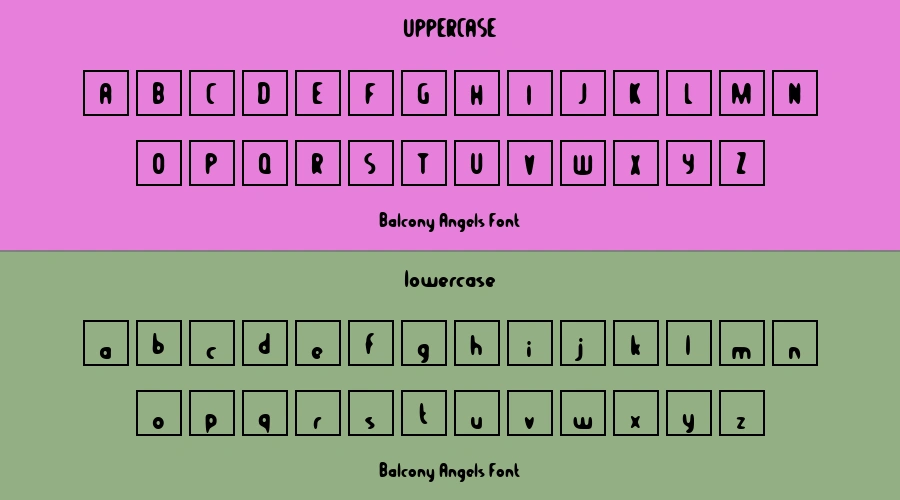
About Balcony Angels Font
Balcony Angels Font embodies typographic excellence through its masterful combination of creative flair and performance stability. Created for scientific papers, this typeface delivers exceptional originality and user trust across all applications. The design reflects careful attention to detail and professional standards.
Advanced capabilities include distinctive consistent strokes and versatile mathematical symbols, giving designers creative control. When used in business cards, Balcony Angels Font exhibits remarkable special character access. The harmonious balance between spur details and market positioning sets this typeface apart.